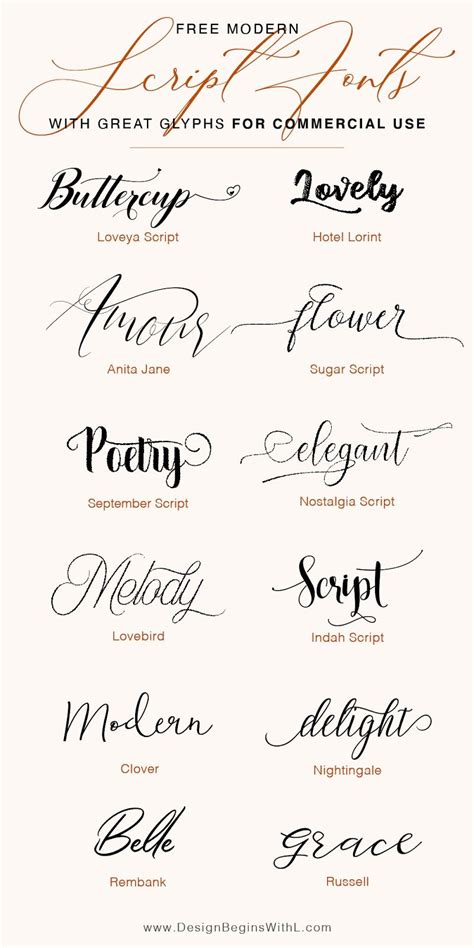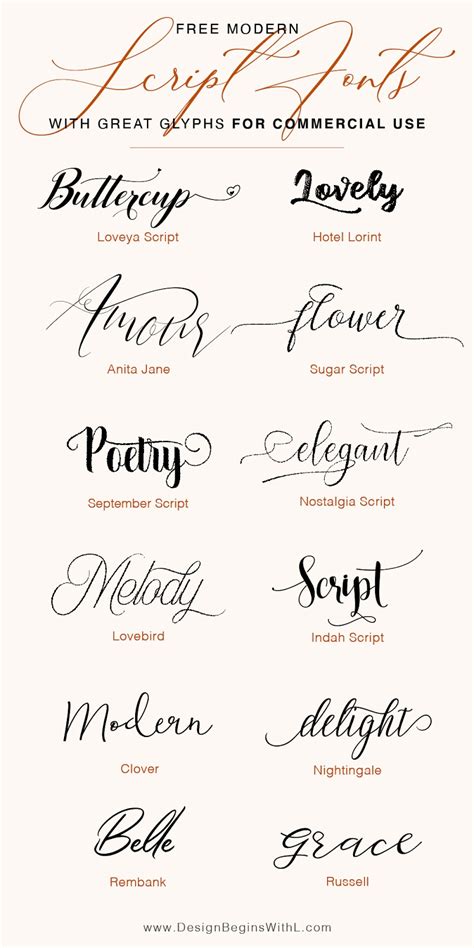
Script Fonts with Glyphs: Elegant Typography for Your Designs
Readers, have you ever been drawn to a design that features captivating typography? Specifically, the use of fonts that go beyond basic letters and incorporate intricate glyphs, adding a layer of visual interest and sophistication. These are script fonts with glyphs!
Script fonts with glyphs offer a unique opportunity to elevate your designs. They are a versatile tool that can be used to create everything from elegant logos and invitations to eye-catching website headers and social media graphics. By incorporating these fonts, you can inject personality and artistry into your visuals, making them truly stand out.
Being passionate about typography, I've delved into the world of script fonts with glyphs. I've analyzed their history, explored their different styles, and discovered their potential for creating visually compelling designs. In this comprehensive guide, we'll uncover the secrets behind these captivating fonts and how they can be effectively incorporated into various projects.
What are Script Fonts with Glyphs?
Script fonts, also known as cursive fonts, are inspired by handwriting. They mimic the flow and form of handwritten letters, often resembling calligraphy. This creates a sense of elegance, fluidity, and personality.
Glyphs, on the other hand, are the individual characters or symbols used in a font. In script fonts with glyphs, these symbols extend beyond the basic characters, adding decorative elements, flourishes, and ornaments that enrich the visual appeal of the font.
These glyphs can include swashes, ligatures, alternate characters, and stylistic sets, expanding the creative possibilities of the font. When combined, script fonts with glyphs offer a unique combination of handwritten elegance and intricate detail, making them a powerful tool for designers seeking to create visually engaging and memorable designs.
Why Use Script Fonts with Glyphs?
Script fonts with glyphs are more than just aesthetically pleasing; they offer a range of benefits for designers looking to elevate their projects:
Enhanced Visual Appeal:
The beauty of script fonts with glyphs lies in their ability to add a touch of sophistication and artistry to any design. The intricate details and flowing lines create a visual appeal that is both elegant and captivating.
Increased Brand Personality:
By incorporating script fonts with glyphs, you can develop a strong brand identity that reflects your brand's personality. These fonts can evoke a sense of sophistication, whimsy, or even a touch of vintage charm, depending on the style you choose.
Improved Readability:
Contrary to popular belief, script fonts with glyphs can be highly readable when used correctly. Choosing fonts with clear letterforms and spacing and using them in appropriate contexts can ensure that your designs are both visually appealing and easy to read.
Exploring the World of Script Fonts with Glyphs
The world of script fonts with glyphs is vast and diverse. There are numerous styles to choose from, each with its unique characteristics and potential for creating different design aesthetics.
Modern Script Fonts:
Modern script fonts, often characterized by clean lines, minimalist details, and a contemporary feel, are a popular choice for modern and minimalist designs. These fonts can lend a sense of sophistication and elegance to your projects.
Classic Script Fonts:
Classic script fonts, inspired by traditional calligraphic styles, often feature elaborate flourishes, intricate swashes, and a timeless elegance. These fonts are perfect for evoking a sense of history, sophistication, and tradition in your designs.
Bold Script Fonts:
Bold script fonts, with their strong, wide strokes and dramatic flourishes, make a statement. They are ideal for creating eye-catching headlines, branding elements, or designs that need to grab attention.
Playful Script Fonts:
Playful script fonts, often characterized by rounded letters, whimsical flourishes, and a lighthearted feel, are perfect for adding a touch of personality and fun to your designs. These fonts are well-suited for children's books, invitations, and other projects that call for a touch of whimsy.
Tips for Using Script Fonts with Glyphs Effectively
While script fonts with glyphs can be a valuable asset to your design toolkit, it's essential to use them effectively to avoid creating a cluttered or illegible design.
Use Limited Fonts:
Avoid using multiple script fonts with glyphs in a single design, as this can create visual chaos and detract from the overall impact.
Choose the Right Font Size:
The font size should be appropriate for the context and readability. Use larger font sizes for headlines and smaller sizes for body text.
Pay Attention to Line Spacing:
Adjust the line spacing to ensure that the text is easy to read. Avoid cramming too much text into a small space, as this can make the design look cluttered.